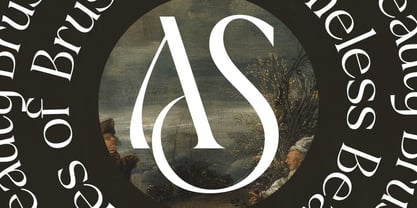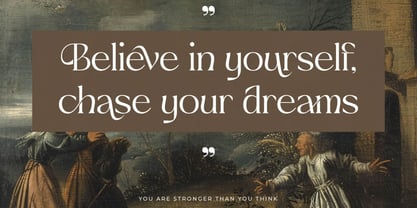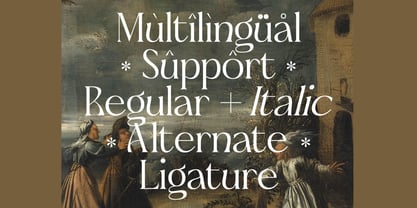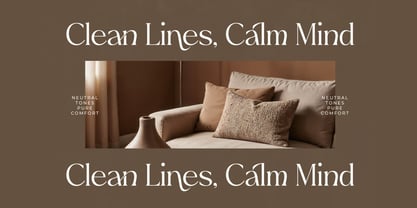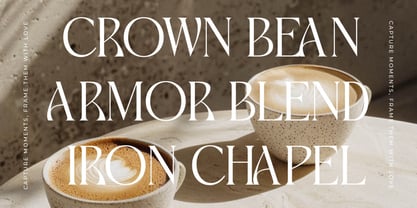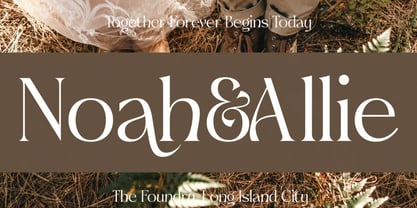
Caodak
by Hasnat Studio
The Caodak Font Family was designed by Hasnat Khan and published by Hasnat Studio. Caodak contains 1 styles. More about this family
Caodak is a modern serif display typeface that beautifully merges classic elegance with contemporary sophistication. Designed with graceful ligatures, expressive alternates, and refined letterforms, Caodak brings a luxurious and artistic feel to any design. Each character is crafted with attention to detail—bold yet graceful—striking the perfect balance between historical charm and modern creativity. This typeface is ideal for designers who want to create premium branding, elegant editorial titles, high-impact posters, luxurious packaging, stylish invitations, magazine layouts, and sophisticated digital graphics. With its timeless charm and modern versatility, Caodak ensures your typography stands out with beauty and distinction. ✿ Key Features: Modern Serif Display Style: A refined blend of classic tradition and contemporary design. Elegant Ligatures: Beautifully crafted ligatures for smooth, artistic typography. Stylish Alternates: Creative alternates that add expressive character and personalization. Uppercase & Lowercase: Complete character set for versatile typography. Numbers & Punctuation: Fully equipped for professional and polished compositions. Multilingual Support: Includes accented characters for international design needs. High-Quality Letterforms: Clean, luxurious strokes designed for premium results in print and digital. ✿ Perfect For: Branding & Logo Design: Ideal for upscale, fashion-forward, and premium identities. Editorial & Magazine Titles: Create stunning, sophisticated headlines. Posters & Visual Graphics: Achieve bold and elegant display compositions. Packaging & Labels: Perfect for luxury products, cosmetics, and artisanal goods. Invitations & Stationery: Elevate wedding and event designs with timeless beauty. Web & Social Media Content: Add polished elegance to digital layouts and posts. Bring artistic beauty and modern sophistication to your designs with Caodak—a timeless serif display font crafted for elegance and excellence.